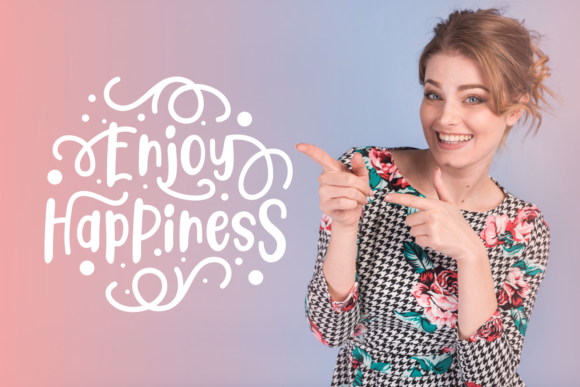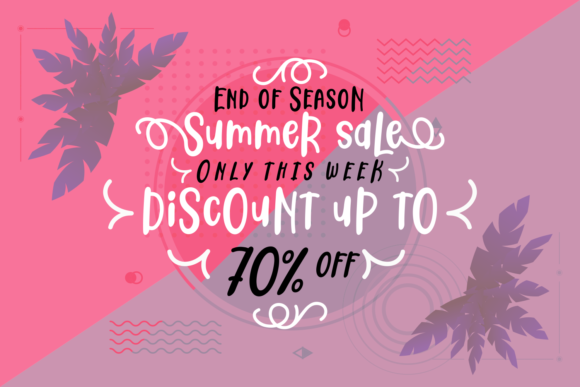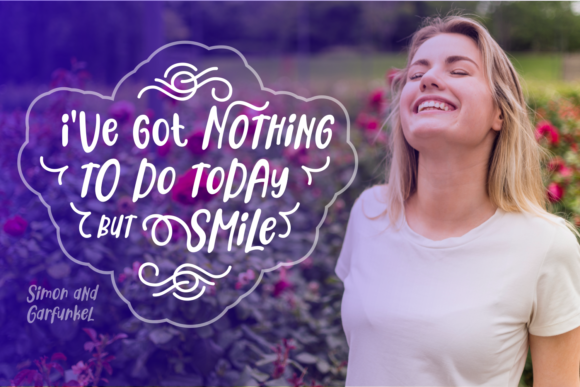
Relax on Sunday Font
About Relax on Sunday Font
Relax on Sunday is a light and casual handwritten font with a unique twist. Use it to add a personal touch to any design idea!